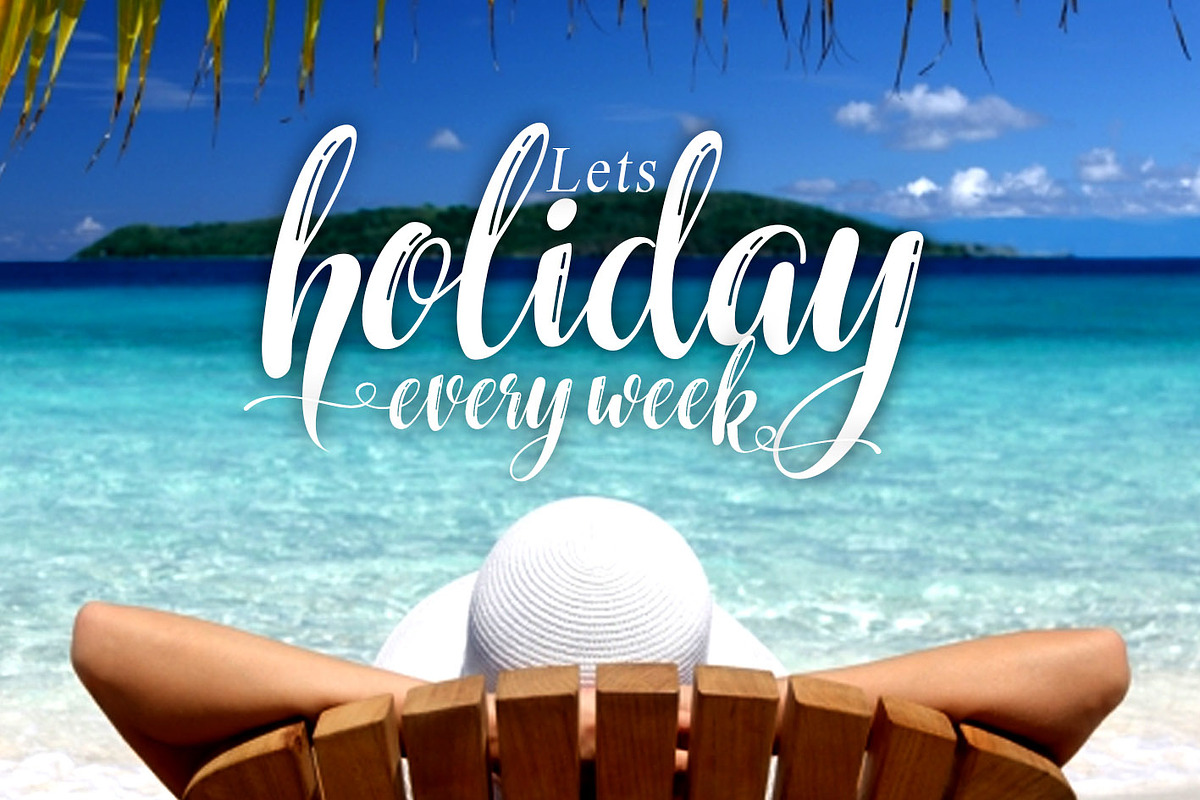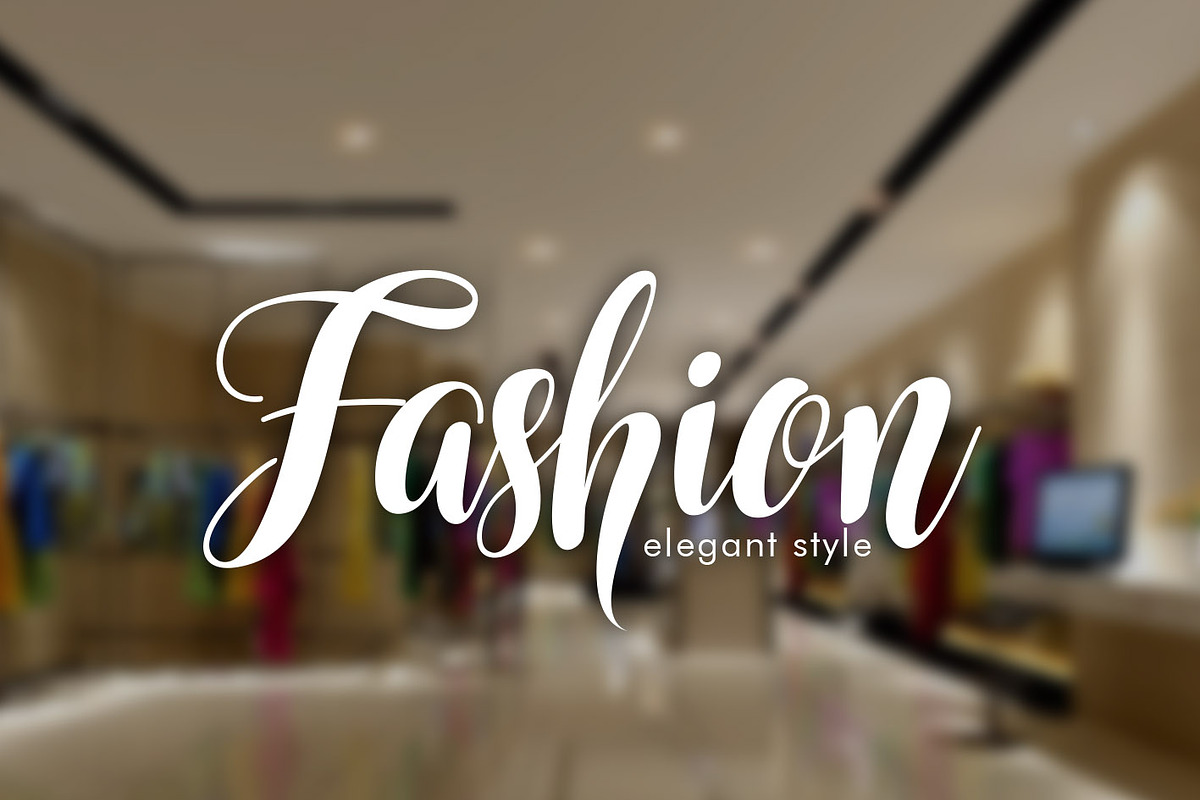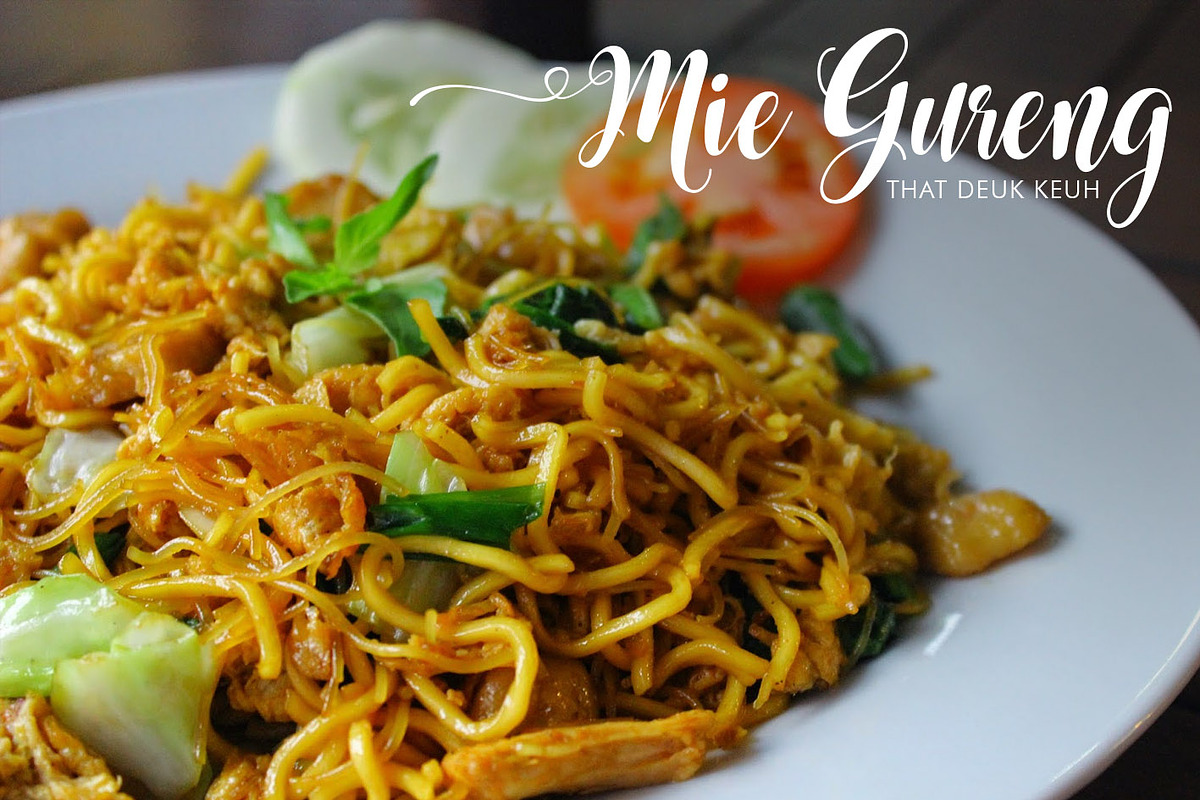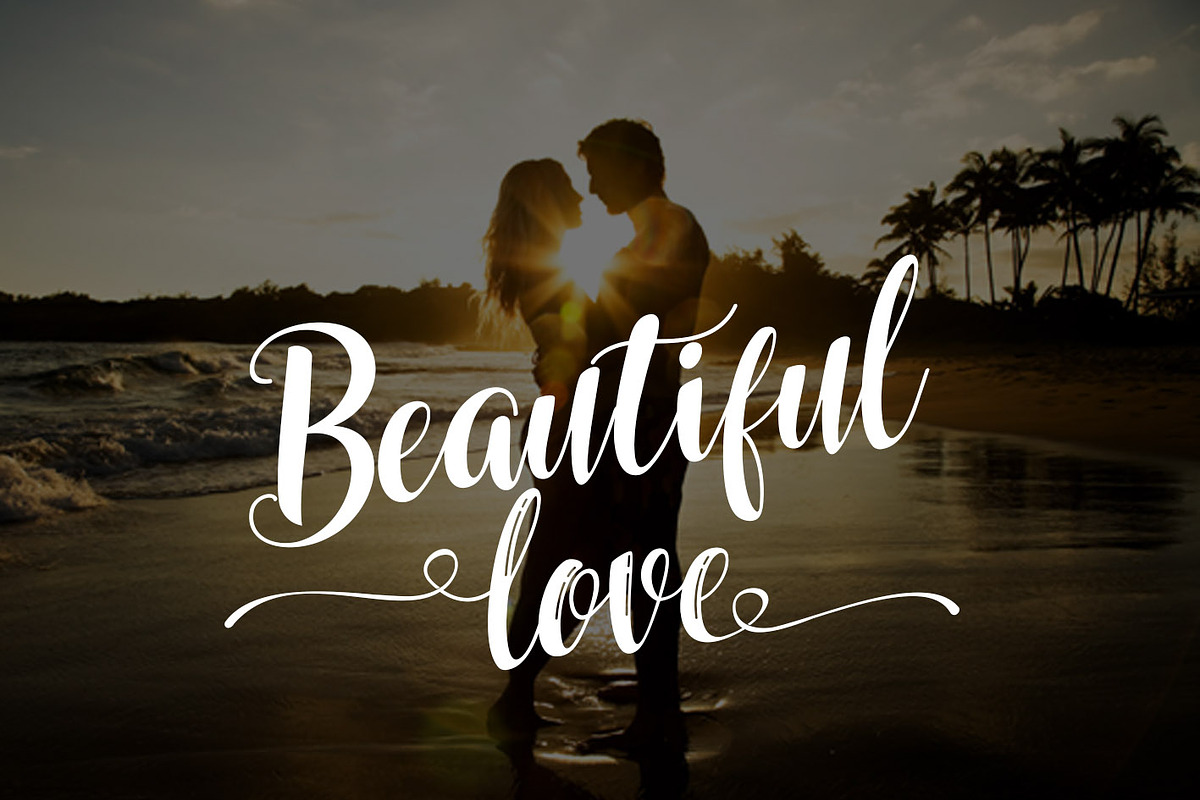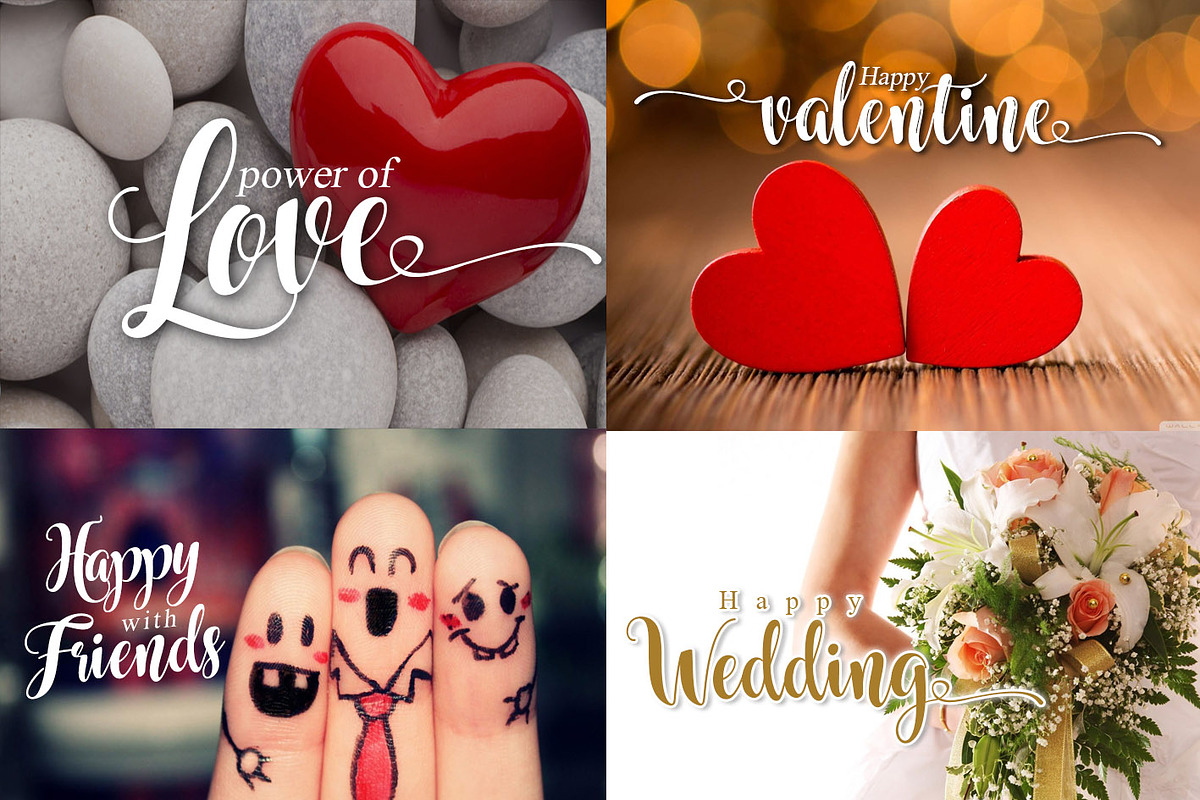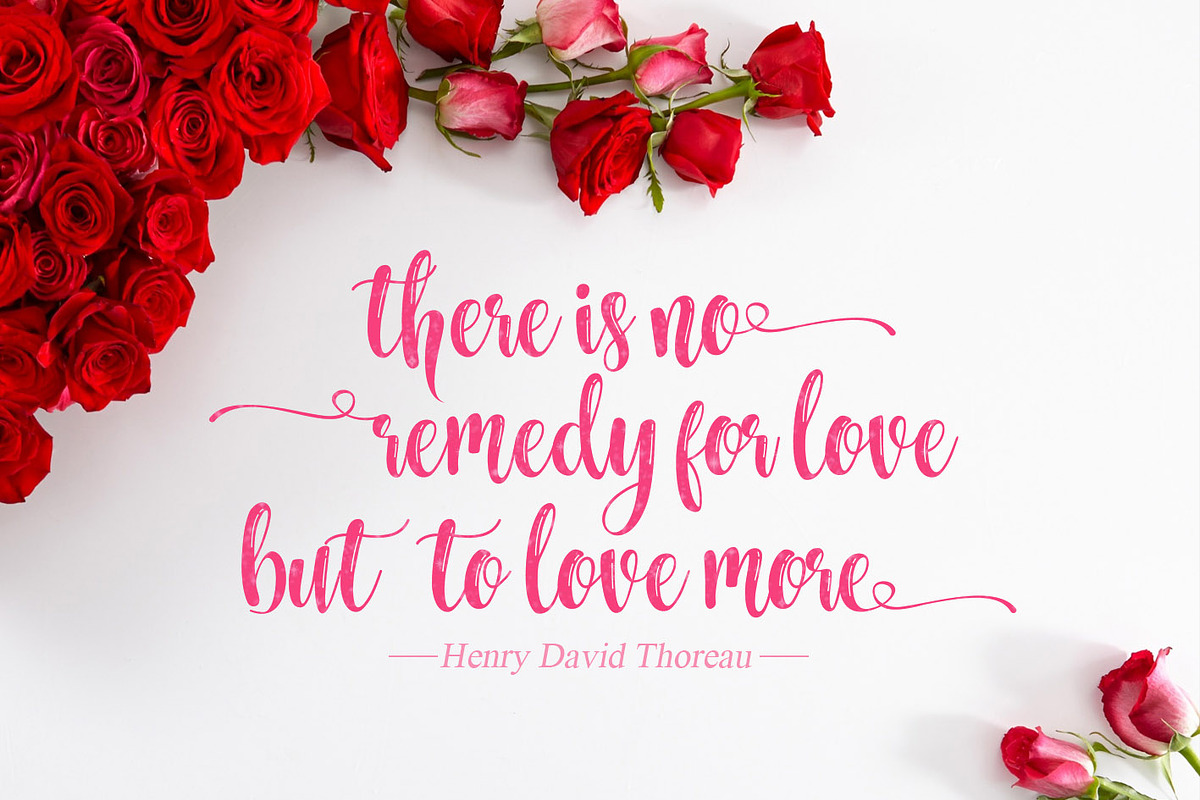
Nelvita Script (Duo Font + Extra)
Nelvita Script (Duo Font + Extra) by khurasan is a font selected for branding, posters, packaging, typography.
Why Nelvita Script (Duo Font + Extra) is worth a look
Nelvita Script (Duo Font + Extra) by khurasan fits naturally into Branding, posters, packaging, typography.